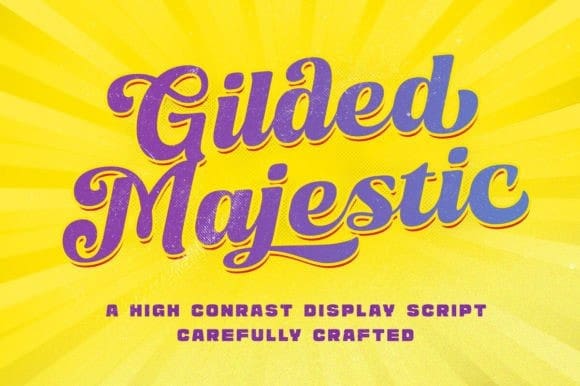
Gilded Majestic Font
Gilded Majestic Font – a high-contrast bold script with a touch of quirky looks. This type of font is perfectly made to be applied especially in logos, headlines, signage, and the other various formal forms such as invitations, labels, logos, magazines, books, greeting/wedding cards, packaging, fashion, makeup, stationery, novels, labels or any type of advertising purpose.